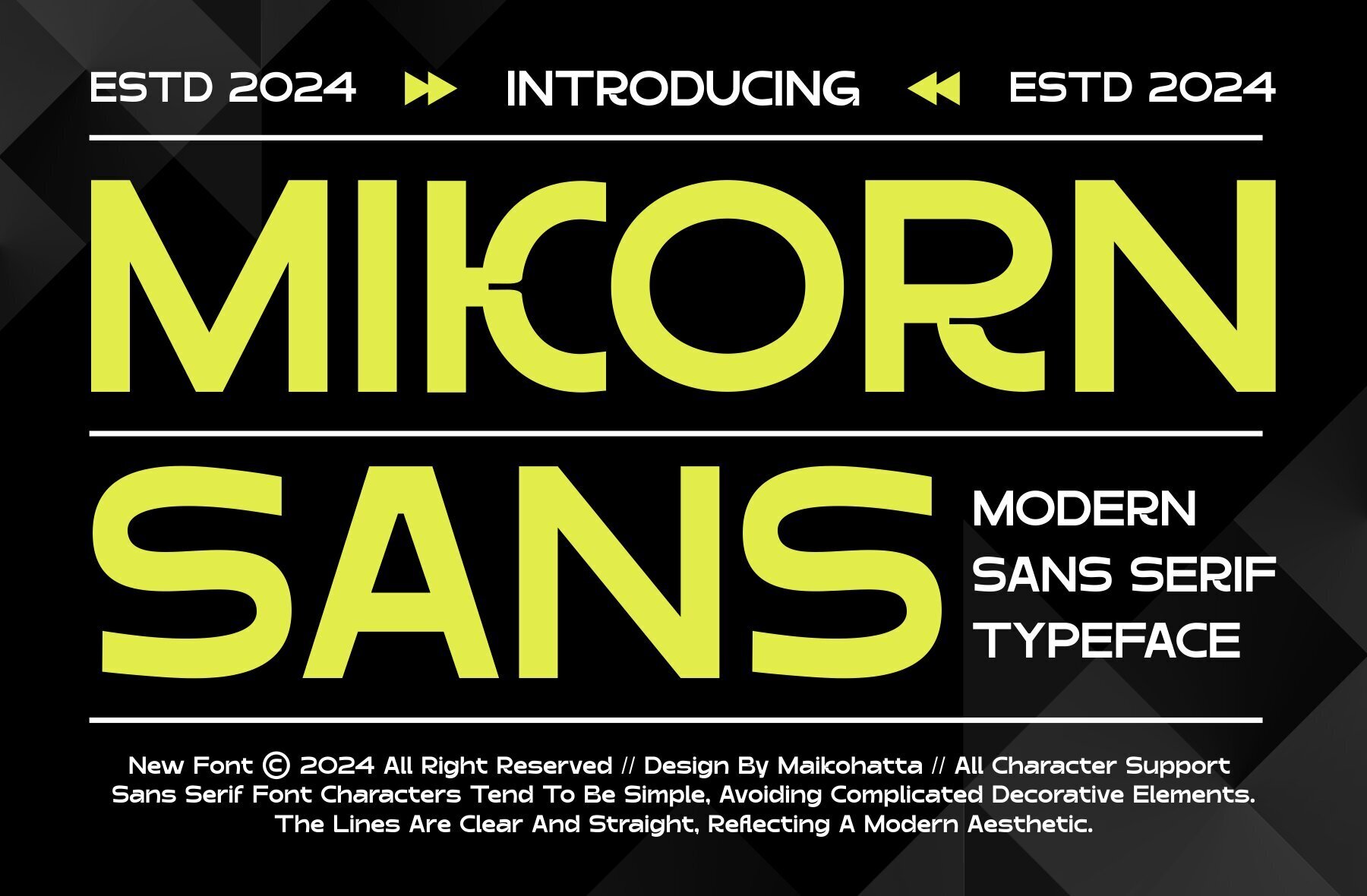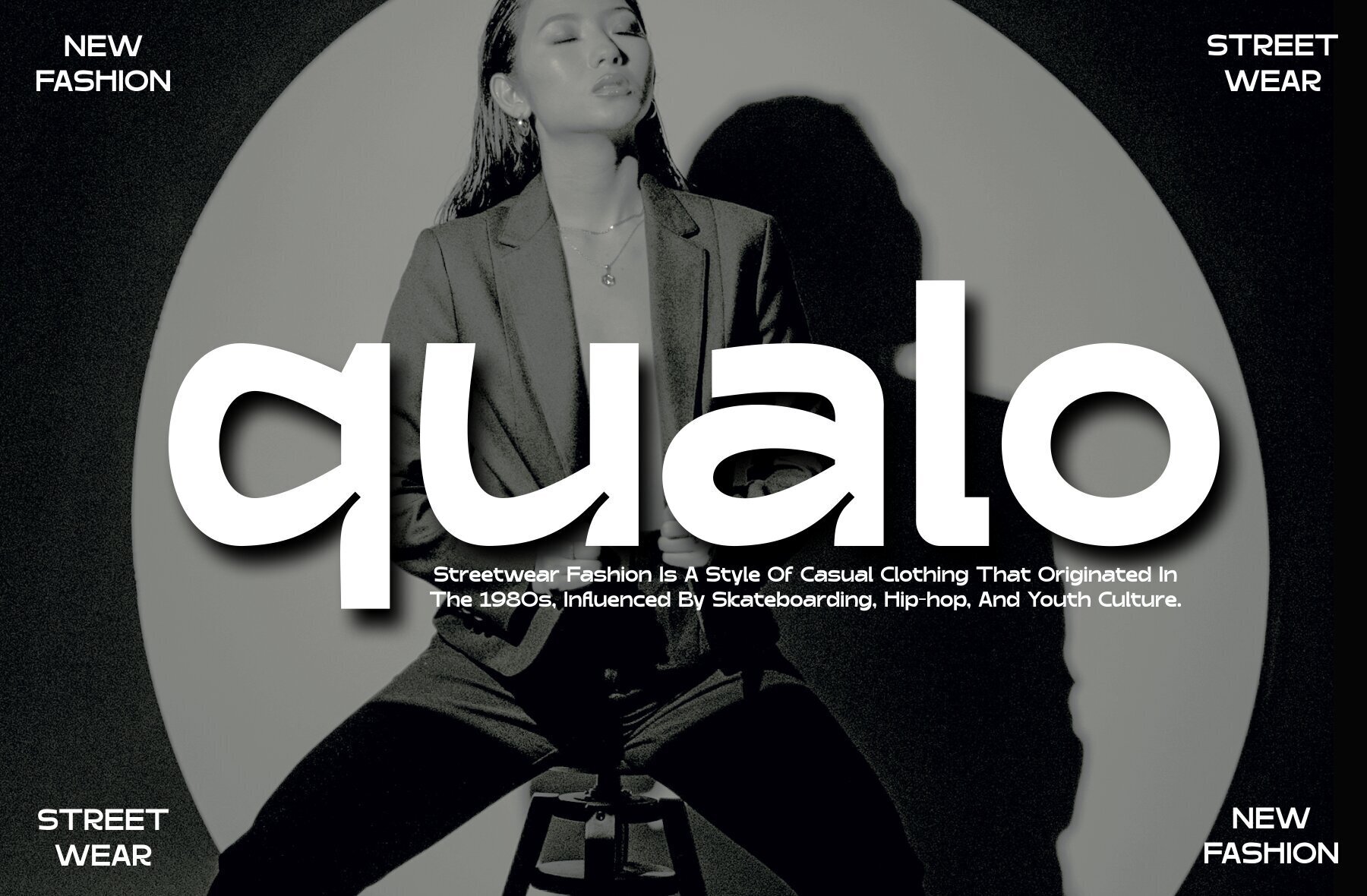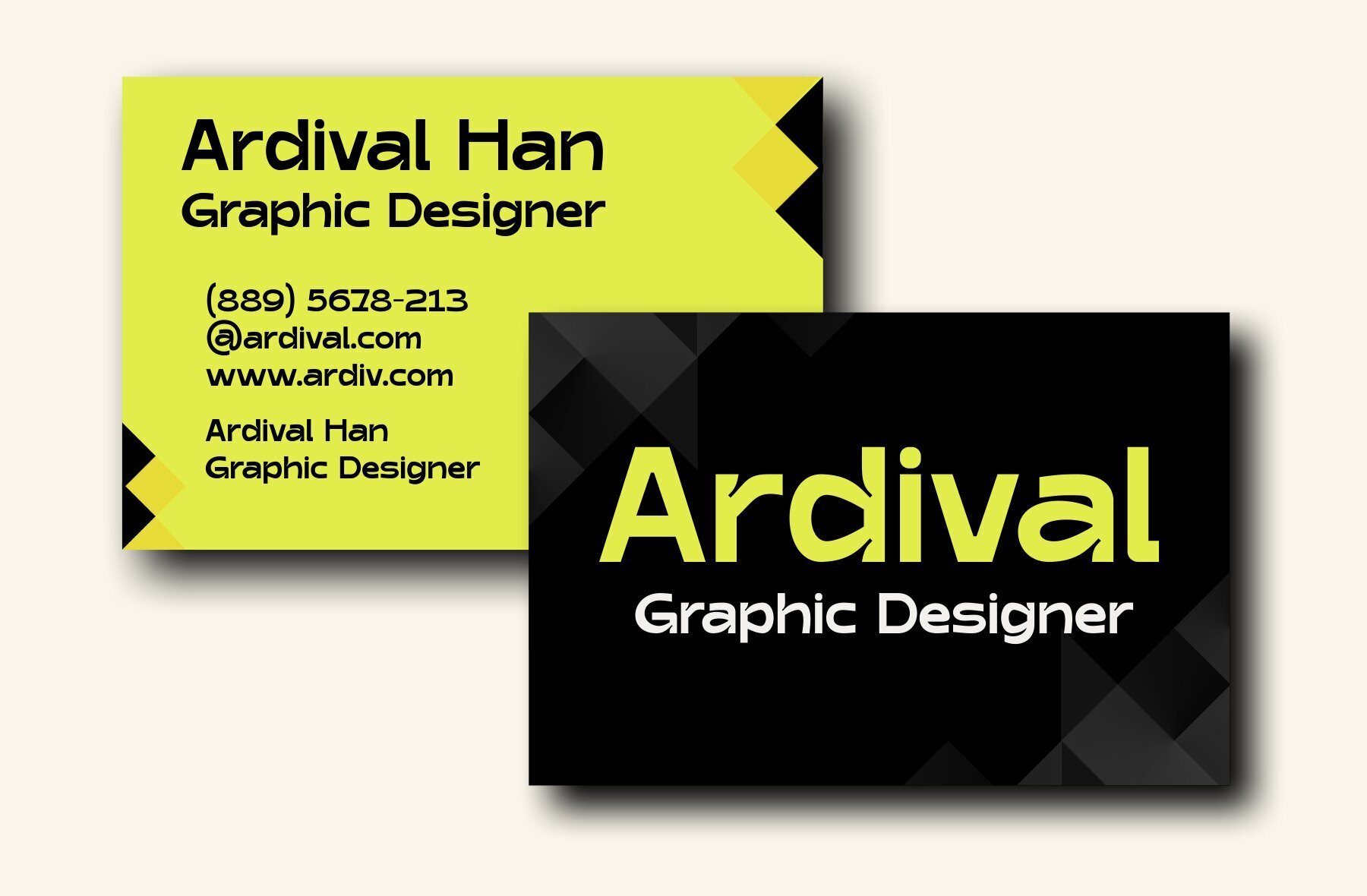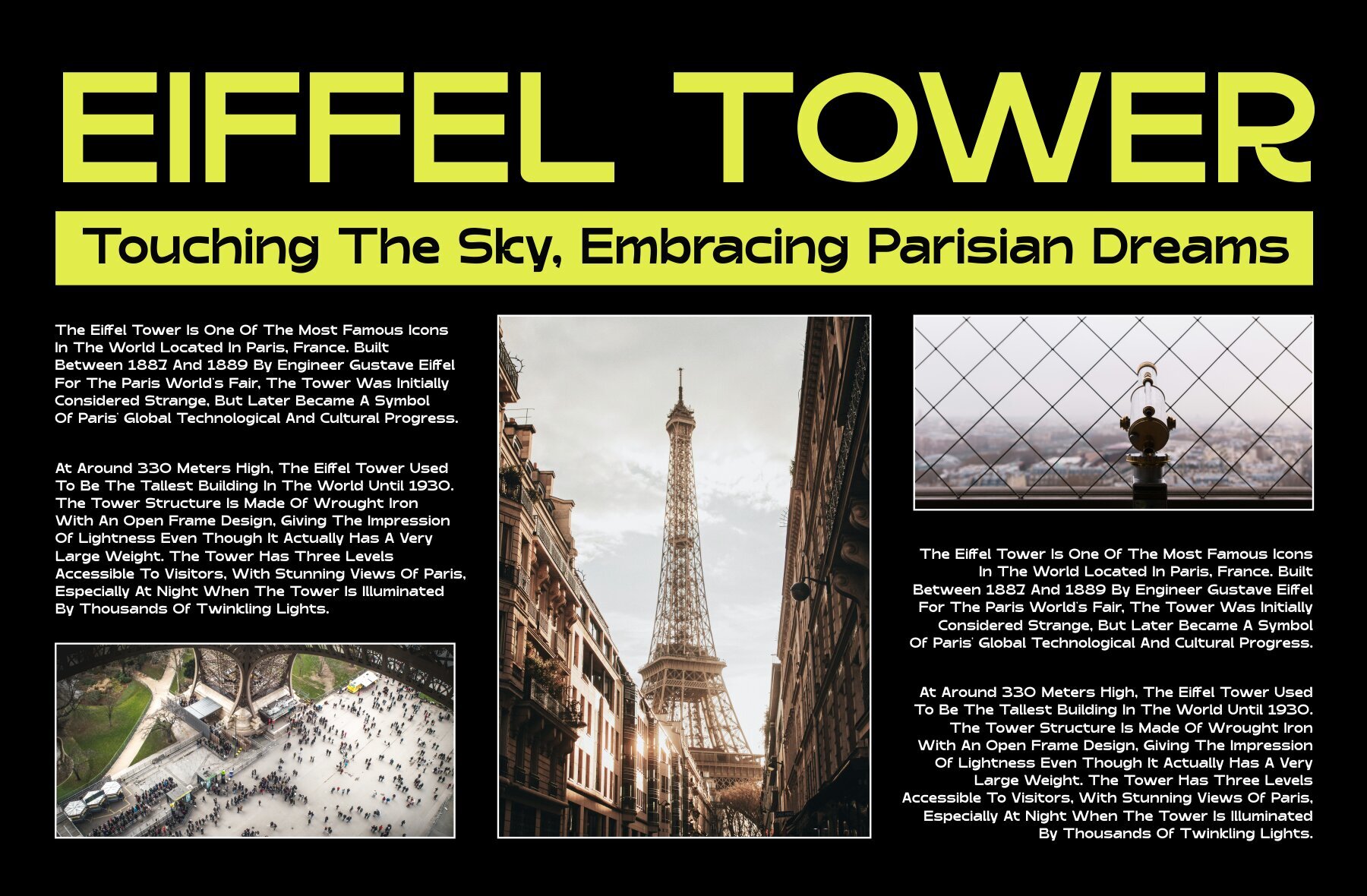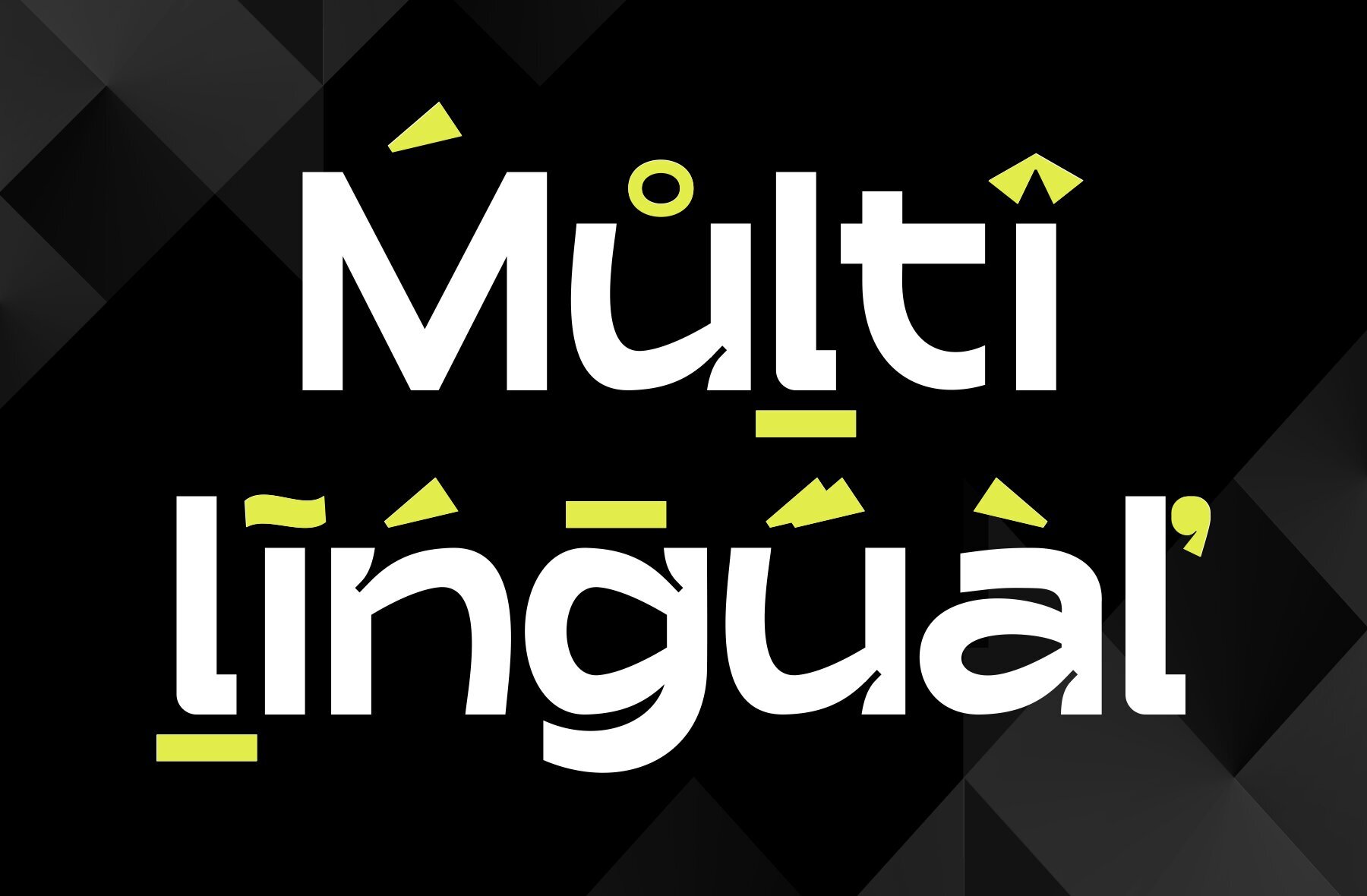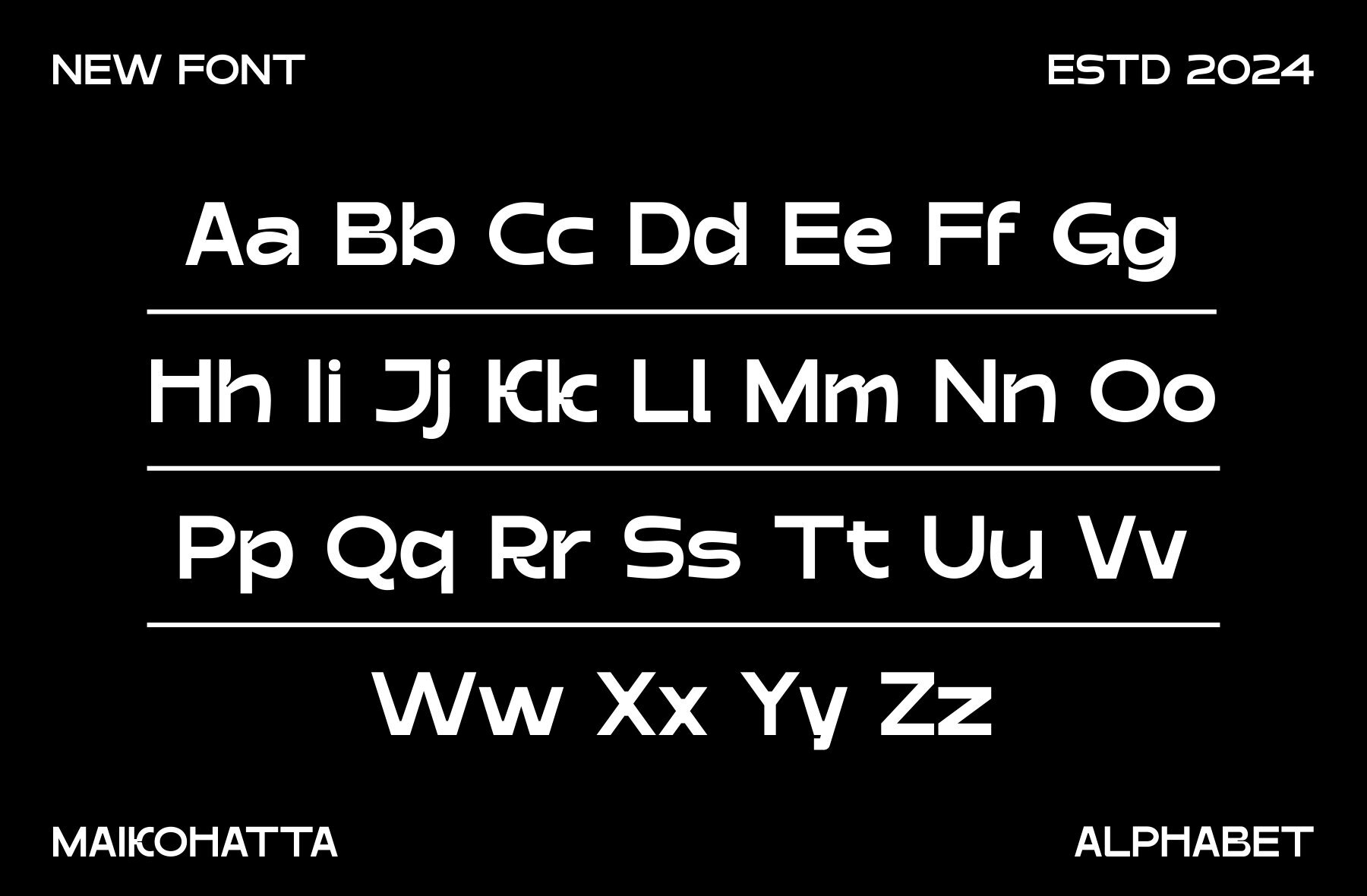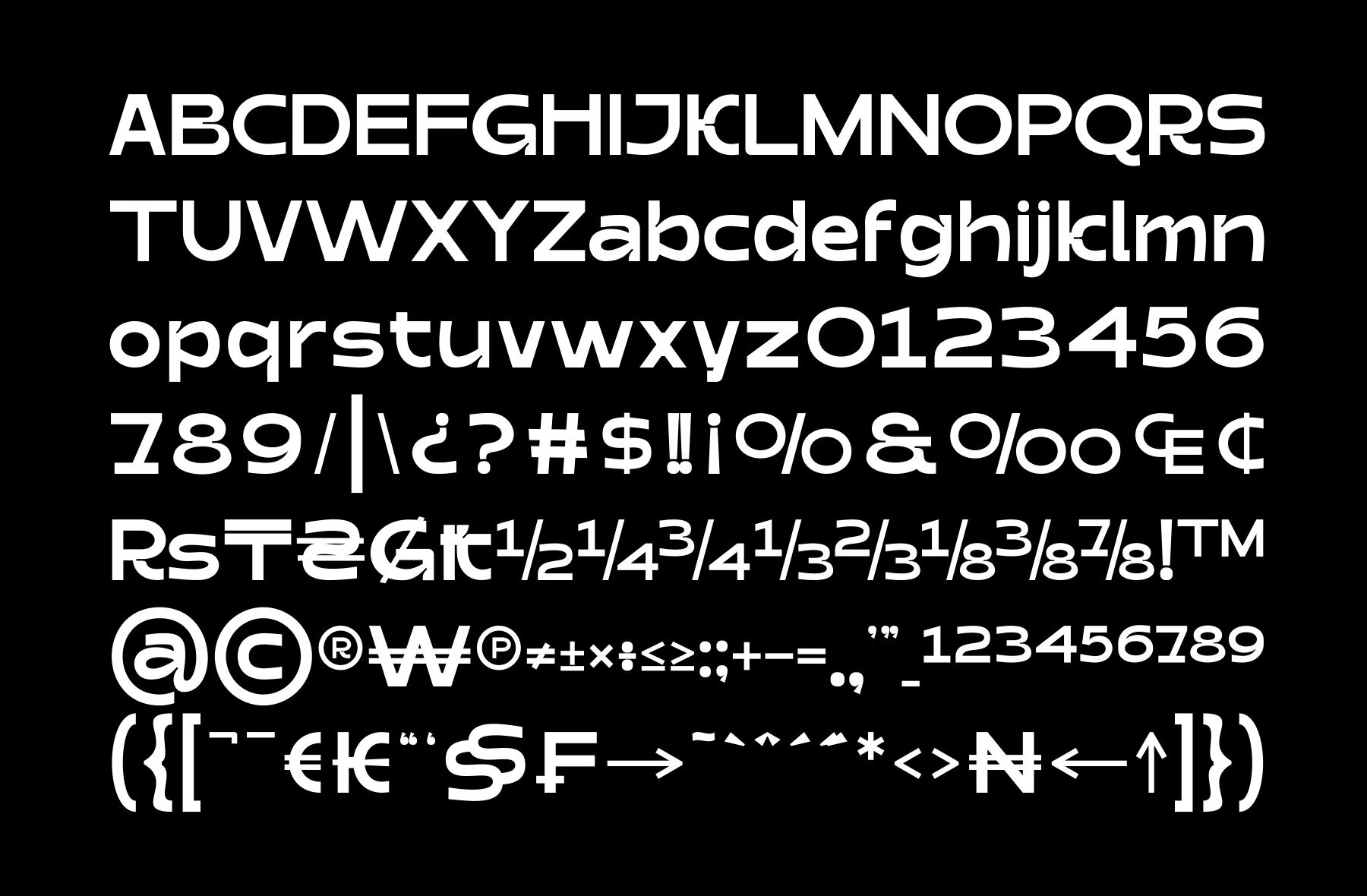
Mikorn Font
MIKORN
Introducing a modern sans serif typeface that offers versatility and contemporary style, perfect for various design contexts. This font's clean and professional appearance lends an elegant touch to projects, making it suitable for both digital and print applications. Its simplicity enhances readability while providing a visually appealing essence that aligns well with current design trends.
Ideal for graphic designers and typographers, this typeface offers the flexibility needed to adapt to different creative projects, whether it’s branding, advertising, or editorial design. Its refined structure and modern aesthetic ensure it complements a wide array of visual concepts, making it a valuable addition to any designer's toolkit.